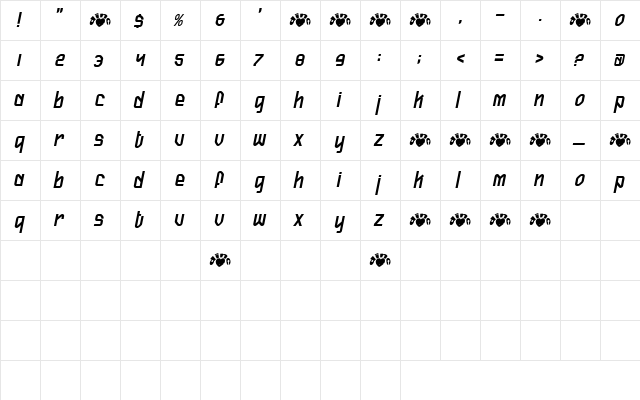
FireflySlant Regular Font Preview
FireflySlant Regular
Design Context for FireflySlant Typeface
FireflySlant takes a measured approach to typography — its balanced proportions and neutral character make it a reliable workhorse for both digital and print work.